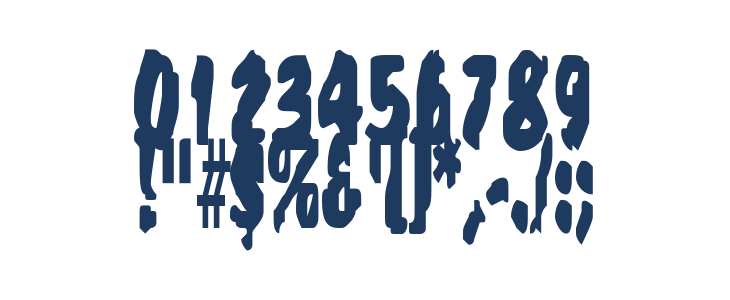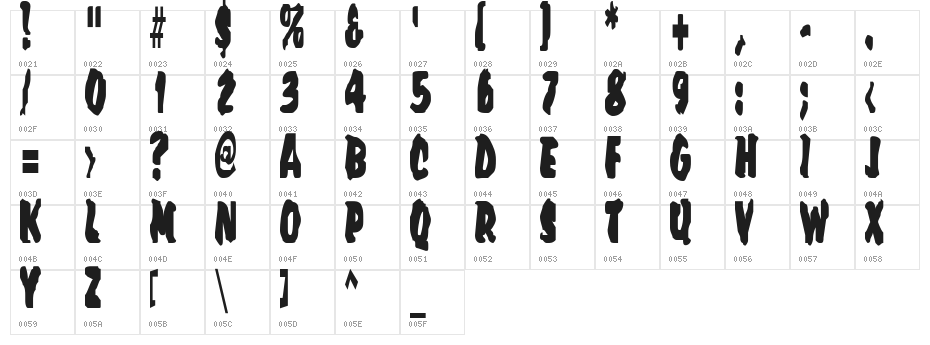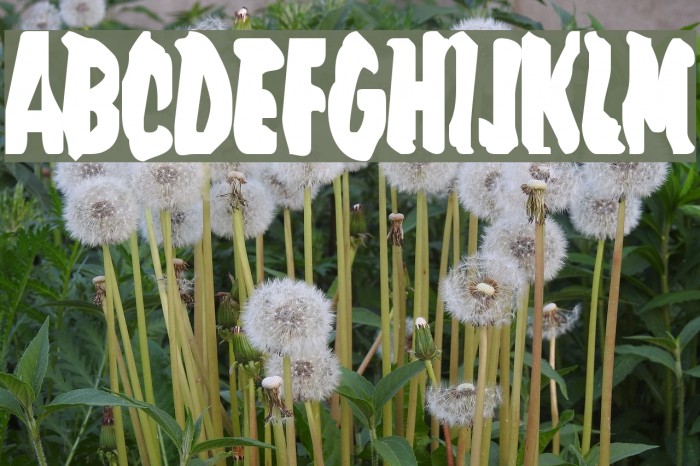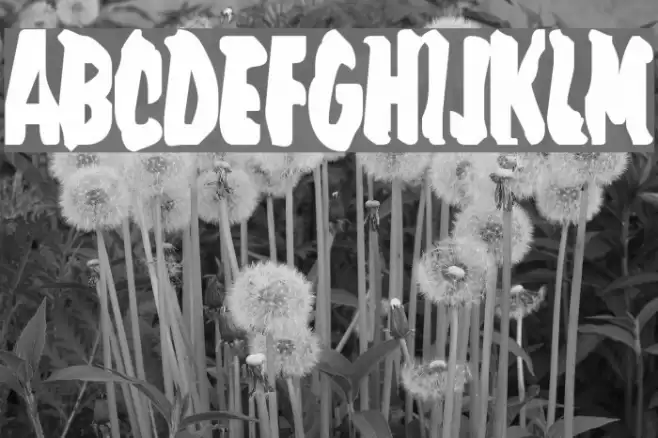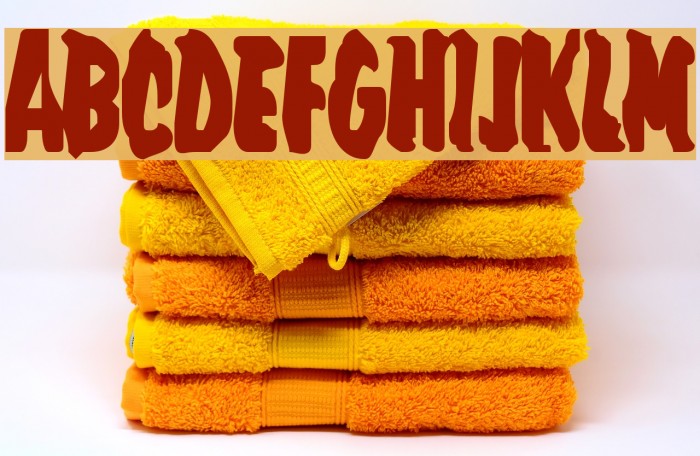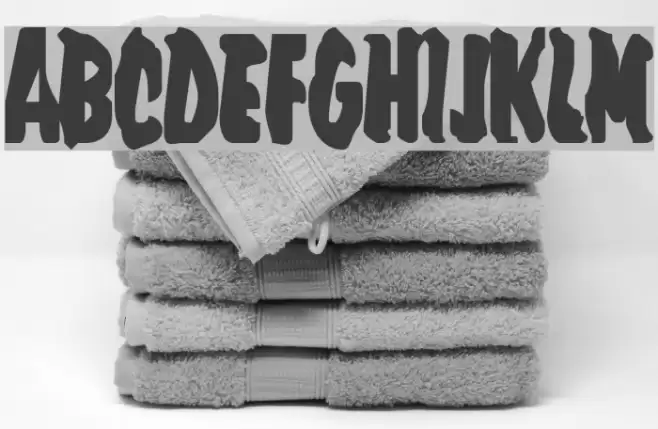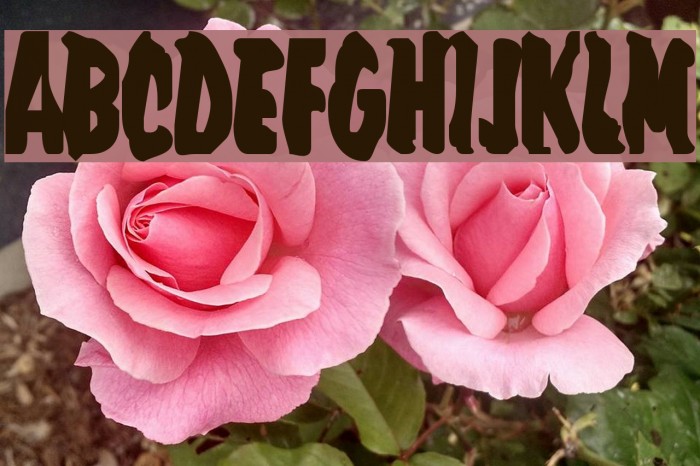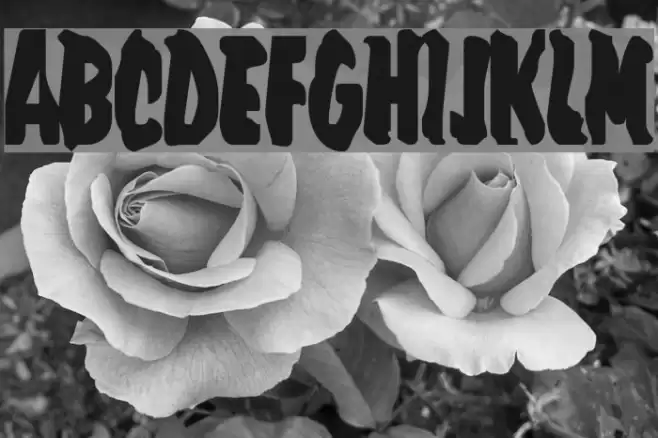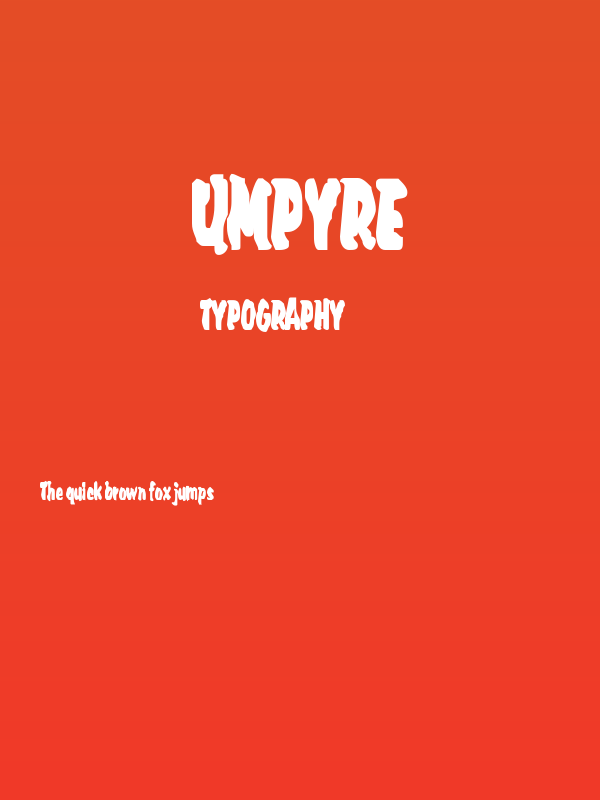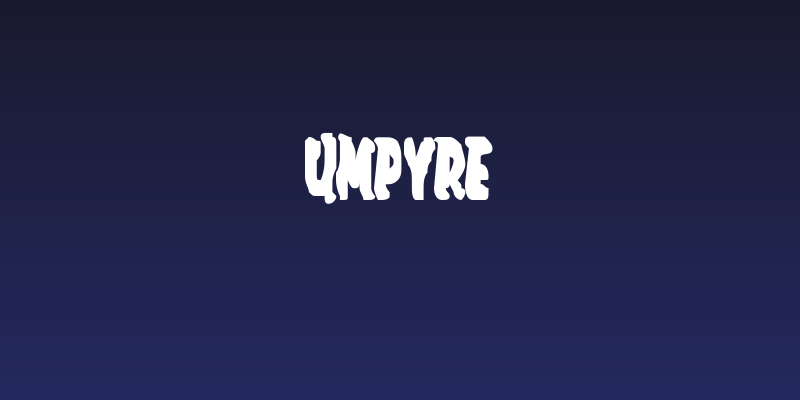
Umpyre Font
Umpyre Description
This font features a bold and dramatic style with thick, heavy strokes that create a strong visual impact. The characters are uniquely shaped with irregular edges, giving them a hand-drawn appearance. The uppercase and lowercase letters maintain a consistent weight, contributing to a cohesive look. Numbers and special characters follow the same bold design, ensuring uniformity across all glyphs. The font's distinctive style makes it suitable for attention-grabbing designs where a strong presence is required.